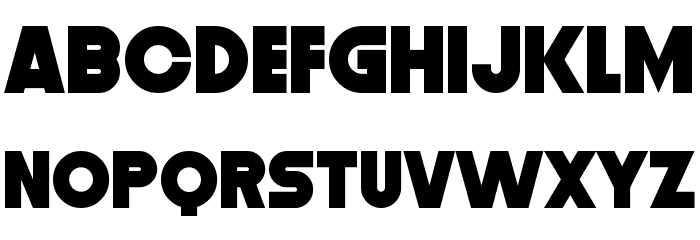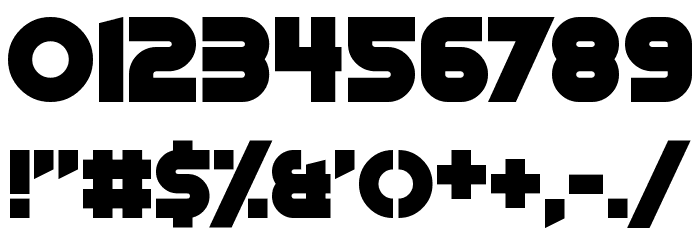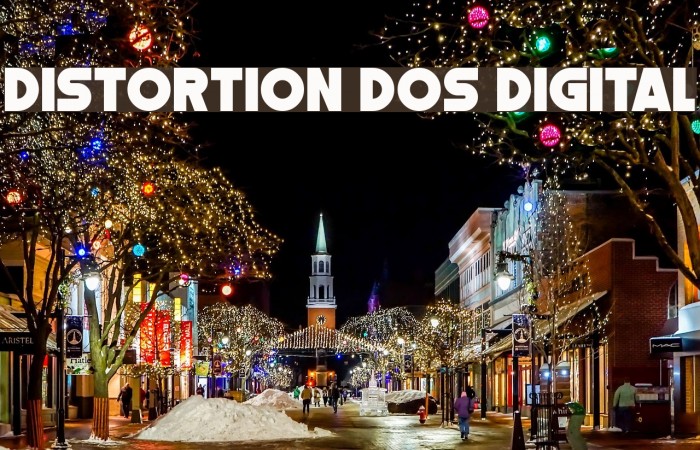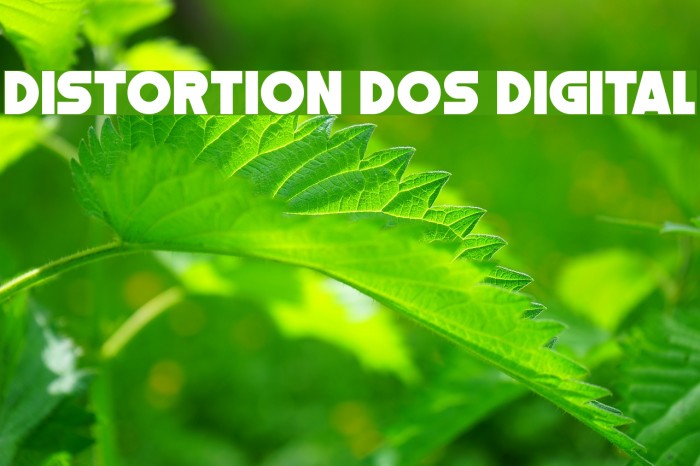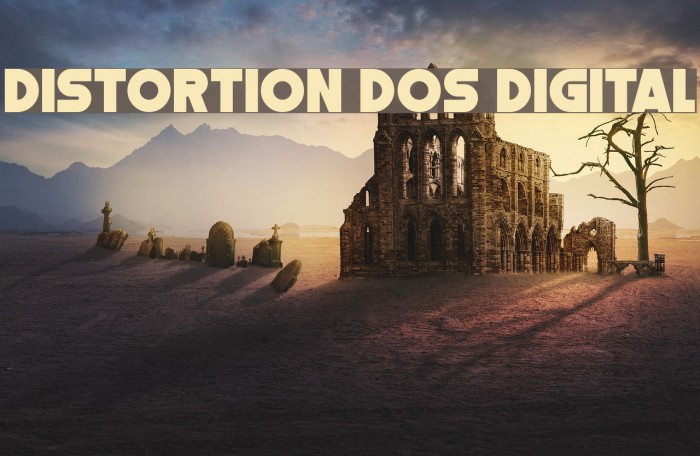
Distortion Dos Digital Font
This font features a bold and geometric design with strong, thick strokes and a modern aesthetic. The characters are highly stylized, with unique cutouts and angular shapes that give it a futuristic and digital feel. The uppercase letters are particularly striking, with a uniform height and width that create a cohesive look. The numerals and special characters maintain the same boldness and geometric style, ensuring consistency across all elements. This font is ideal for making a strong visual impact, especially in digital and tech-related projects.
A bold, geometric font with a modern, digital aesthetic.
- Proposed Projects: Ideal for digital interfaces, tech branding, video game titles, and futuristic posters.